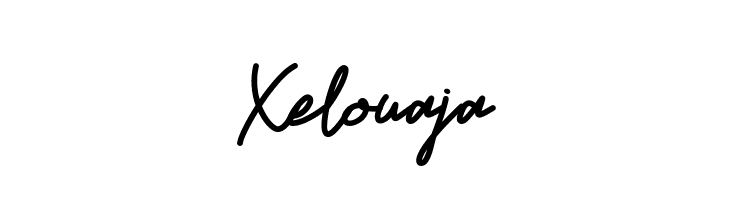
A fluid and elegant script font with smooth, flowing lines.
An elegant, flowing script font with delicate, elongated letterforms.
A playful and artistic handwritten font with fluid strokes.
A fluid and elegant script font with interconnected letters and a natural handwriting style.